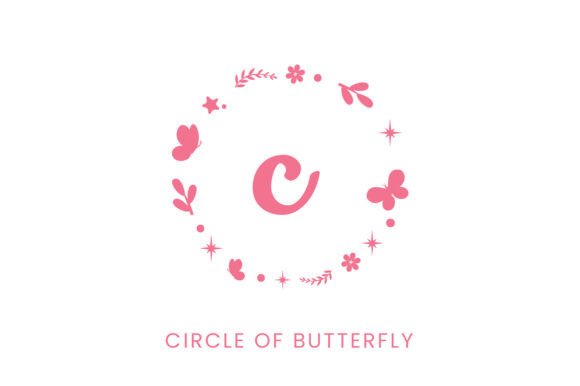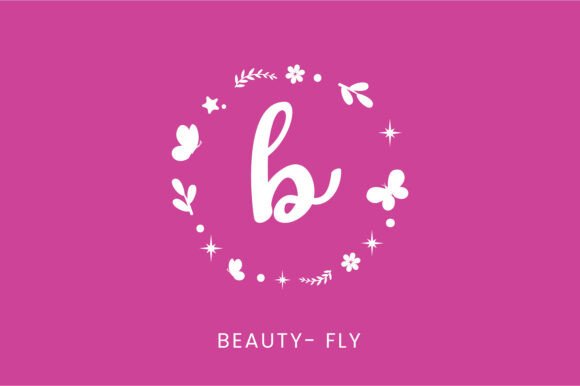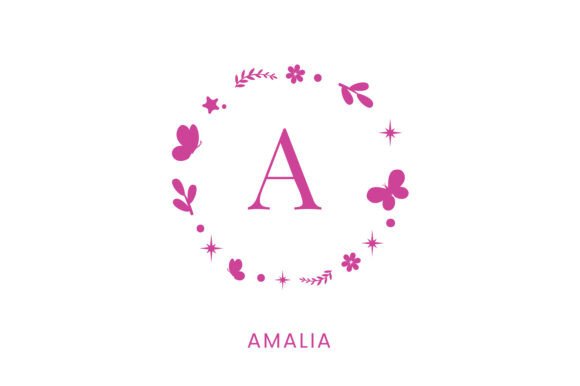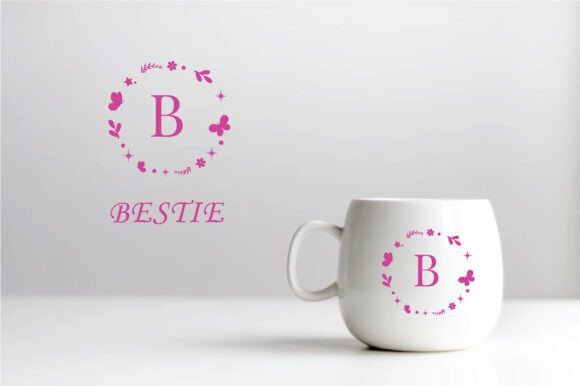
Circle of Butterfly Font
About the Circle of Butterfly Font
Presenting Circle of Butterfly Font, a unique and stylish typeface that will make your work stand out. Circle of Butterfly is a playful decorative font where each letter is framed by a circle of butterflies, stars, leaves, and whimsical ornaments. Featuring elegant uppercase serif and cute script lowercase—perfect for crafts, stickers, logos, and more!
Circle of Butterfly Font Usage Examples
Circle of Butterfly Font Example